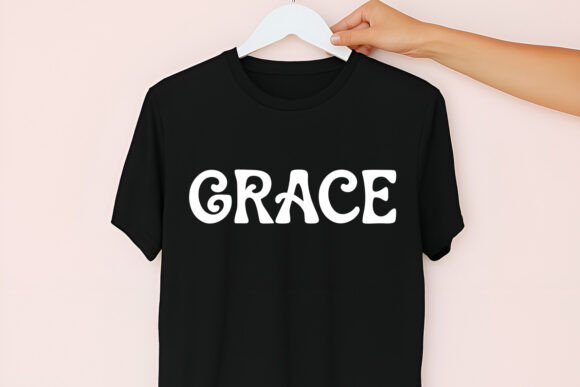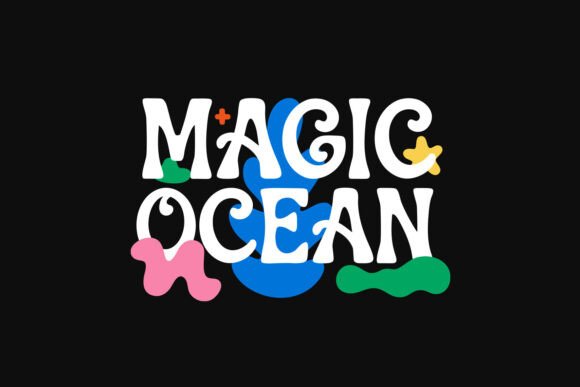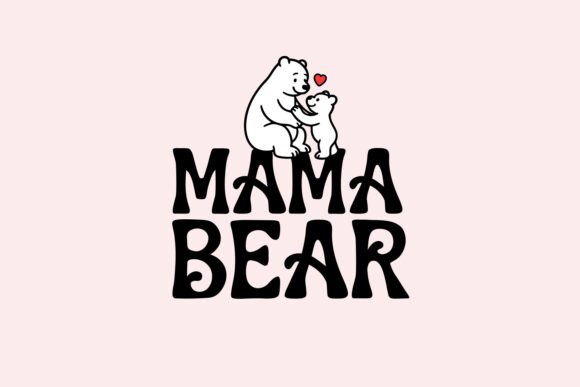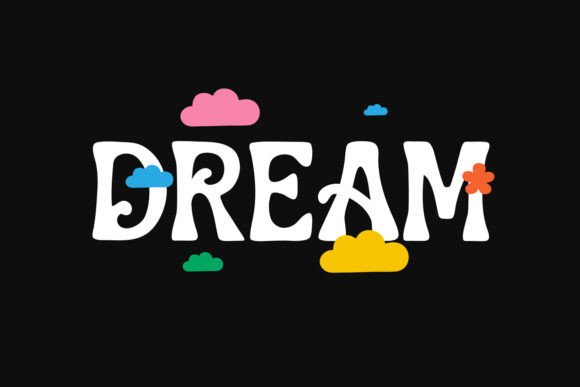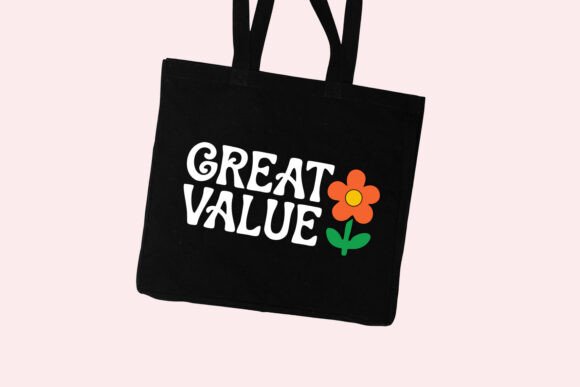
The Groovy World of Camel Funky Font
Ah, the elusive perfect font. We’ve all been there – stuck in the middle of a design project, scrolling through font libraries, and yet, nothing seems quite right. I recall a particularly frustrating moment when a client asked for a “retro vibe” for their branding project. I spent hours searching for that ideal font, and then, it hit me – Camel Funky Font. With its groovy, retro, boho, and fun 70s display style, it was love at first sight! In this article, we’ll dive into the wonderful world of Camel Funky Font and explore its uses, features, and some helpful tips for incorporating it into your designs.
A Personal Review of Camel Funky Font
So, what makes Camel Funky Font so special? Let’s dive into the good stuff and, of course, a few quirks I’ve discovered.
- ✨ Unique Retro Style: Camel Funky Font brings that funky 70s vibe that’s perfect for a variety of design projects, from crafts to digital designs.
- âś… Versatility: Whether you’re creating eye-catching logos, branding materials, or quotes, this font adapts beautifully.
- đź’« Easy to Read: Despite its funky style, the font remains clear and readable, even at smaller sizes.
- 🎨 OpenType Features: It comes with a range of OpenType features, including glyphs and stylistic alternates, which can add an extra layer of creativity to your designs.
While Camel Funky Font is fantastic, there are a few things to keep in mind:
- 🤔 Legibility at Very Small Sizes: While generally readable, at very small sizes (e.g., below 10pt), some details may get lost.
- ⚠️ Limited Use in Body Text: Due to its stylized nature, Camel Funky Font is best used for headings and titles rather than body text.
While the exact origins of Camel Funky Font might not be well-documented, it’s clear that the designer aimed to capture the essence of 70s retro culture. Imagine a time of disco, bell-bottom jeans, and funk music – this font embodies that playful, carefree spirit. Designers often draw inspiration from their surroundings, and it’s likely that the creator of Camel Funky Font was influenced by vintage posters, classic typography, and the vibrant culture of the 1970s.
A: Camel Funky Font is ideal for projects that require a retro or boho vibe, such as crafting, digital design, presentations, greeting cards, logos, and branding materials.
A: While Camel Funky Font is stylish and fun, it’s best used for headings and titles due to its stylized nature. For body text, a more traditional font would be more readable.
A: Yes, Camel Funky Font comes with OpenType features, including glyphs and stylistic alternates, which can enhance your designs.
In conclusion, Camel Funky Font is a versatile and fun addition to any designer’s toolkit. Its unique retro style, combined with its readability and OpenType features, make it perfect for a wide range of creative projects. So go ahead, add it to your collection, and watch your designs come alive with that groovy 70s vibe!